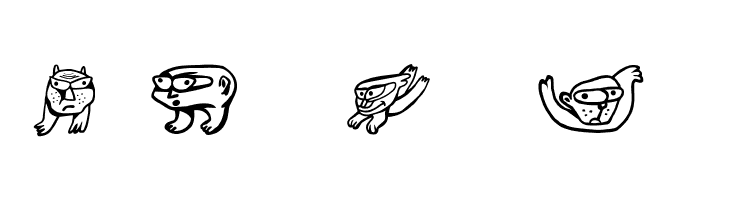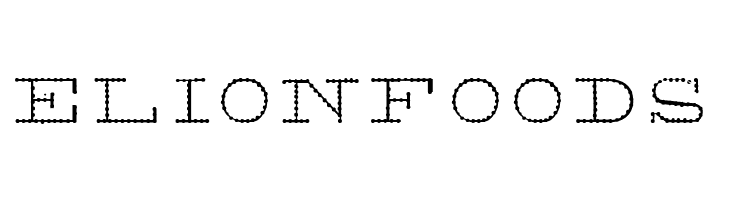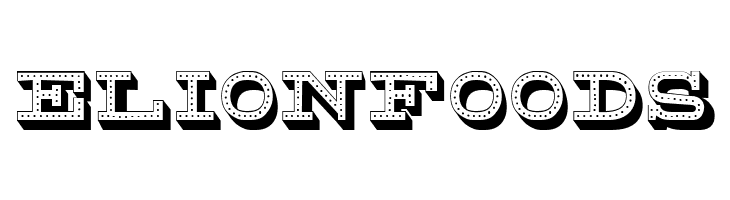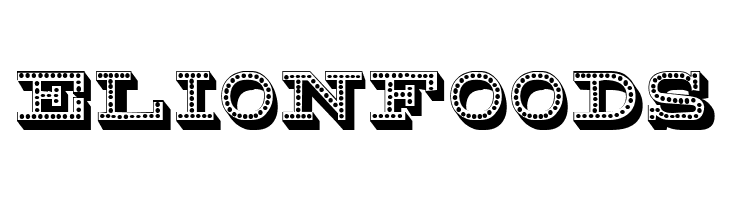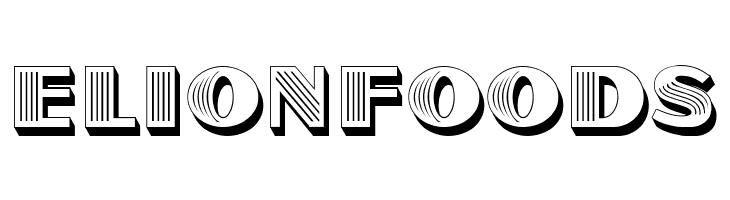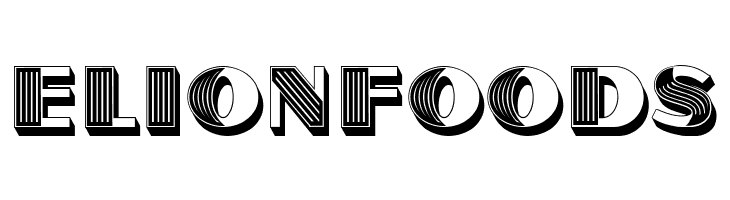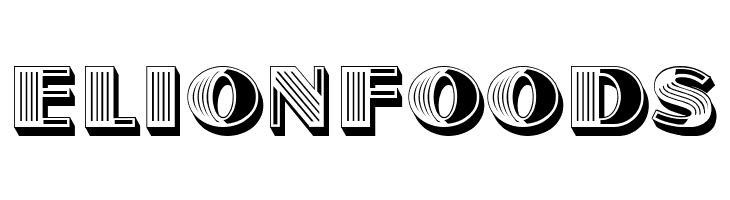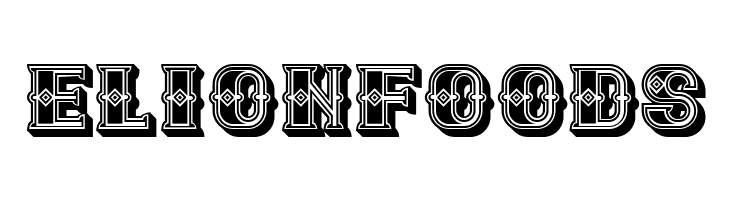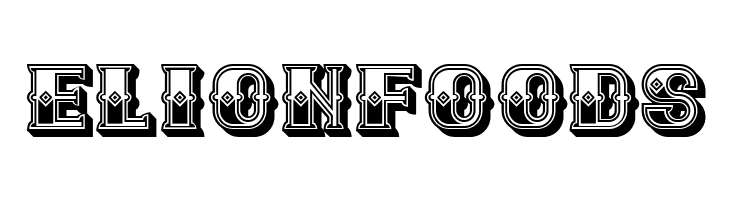
A bold, decorative font with a dotted pattern and vintage marquee style.
A dotted outline font with a playful and modern aesthetic.
A playful, cartoonish font with character illustrations for each letter.
A bold, decorative font with intricate Wild West-inspired detailing.
A bold, decorative font with a vintage, western style.
A bold, decorative font with intricate detailing and a vintage Western flair.
A bold, three-dimensional font with geometric and abstract elements.
A bold, hollow font with a three-dimensional, vintage-inspired style.
A bold, decorative font with a vintage, three-dimensional striped design.